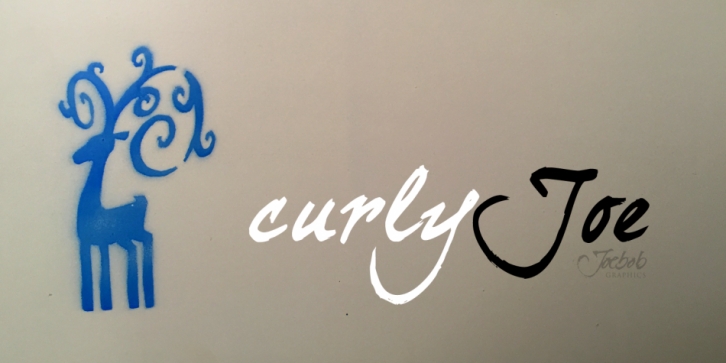
Curly Joe is a brush script font published by JOEBOB Graphics.
CurlyJoe is a fast, informal handwritten font. A bit in the line of the dearJoe series, with a different style of caps.